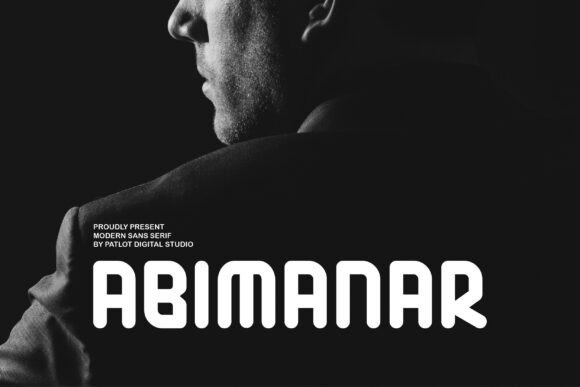
Introducing Abimanar Font: Elevate Your Brand with a Modern Logo Font
In the world of branding and identity design, a font can make all the difference. It can convey a message, evoke emotions, and create a lasting impression. For designers and crafters looking for a font that embodies simplicity, professionalism, and modernity, Abimanar Font is an excellent choice. In this article, we’ll explore the features and benefits of Abimanar, a modern logo font designed to elevate your brand’s visual identity.
What is Abimanar Font?
Abimanar is a modern logo font crafted to add a simple yet professional touch to branding and identity projects. Its crisp lines and modern style make it perfect for a wide range of applications, including logos, business branding, packaging, website headers, and marketing materials. With Abimanar, you can create a bold and memorable visual identity that sets your brand apart.
Key Features of Abimanar Font
- Modern and Minimalist Design: Abimanar boasts a futuristic yet minimalist look, making it ideal for businesses and creators seeking a clean and sophisticated visual identity.
- Crisp Lines: The font’s crisp lines ensure excellent legibility, even at small sizes, making it perfect for use in various design applications.
- Versatility: Abimanar is suitable for a wide range of projects, from logos and branding to packaging, website headers, and marketing materials.
- Professional Touch: The font’s modern style and simplicity add a professional touch to any design project, making it perfect for businesses and creators looking to establish a strong brand presence.
Benefits of Using Abimanar Font
So, why choose Abimanar Font for your design projects? Here are some benefits that make it an excellent choice:
- Enhance Brand Recognition: With Abimanar, you can create a unique and memorable visual identity that sets your brand apart and enhances recognition.
- Save Time and Effort: The font’s versatility and legibility save you time and effort in designing and refining your project’s typography.
- Stand Out in a Crowded Market: Abimanar’s modern and minimalist design helps your brand stand out in a crowded market, making it perfect for businesses and creators looking to establish a strong online presence.
- Easy to Use: The font is easy to use and integrate into your design projects, making it a great choice for designers and crafters of all levels.
Who Can Benefit from Abimanar Font?
Abimanar Font is perfect for a wide range of designers, crafters, and businesses, including:
- Graphic Designers: Abimanar is an excellent choice for graphic designers looking for a modern and professional font for their branding and identity projects.
- Logotype Designers: The font’s crisp lines and modern style make it perfect for logotype designers seeking to create a bold and memorable visual identity.
- Business Owners: Business owners looking to establish a strong brand presence can benefit from Abimanar’s professional and modern design.
- Digital Marketers: Digital marketers can use Abimanar to create eye-catching marketing materials that stand out in a crowded online market.
In conclusion, Abimanar Font is an excellent choice for designers, crafters, and businesses looking to elevate their brand’s visual identity. Its modern and minimalist design, crisp lines, and versatility make it perfect for a wide range of applications. With Abimanar, you can create a bold and memorable visual identity that sets your brand apart and enhances recognition. Whether you’re a graphic designer, logotype designer, business owner, or digital marketer, Abimanar Font is a great addition to your design toolkit.